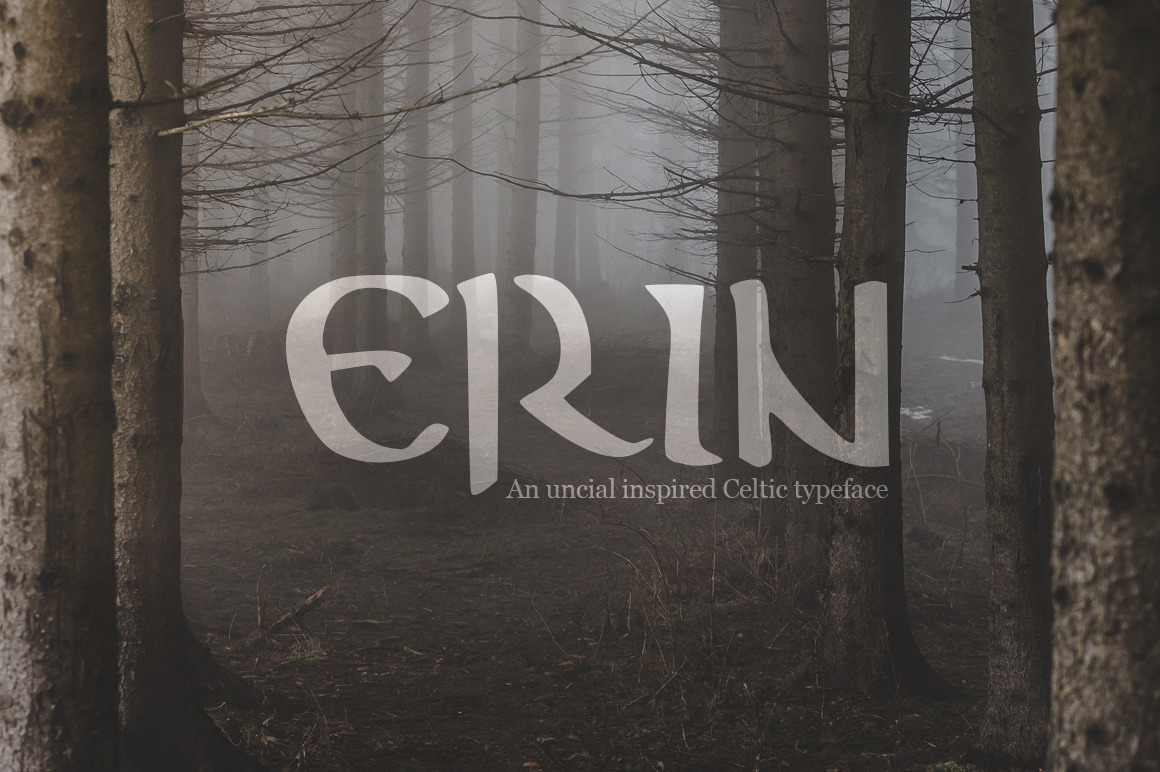
Erin - A Mystical Celtic Typeface
Erin is a Celtic inspired, uncial typeface that comes in two variants; medium and aged. Perfect for adding an air of mysticism and a legendary feel to posters, packaging, branding...and pretty much anything else you can think of.
The font has a humanist feel, with some minor irregularities in the baseline to emphasize the hand crafted appeal. The Aged version has been peppered with pits and scratches, providing a battle-worn and weathered look. Think Celtic, Viking, Fantasy and Medieval....think Erin.
Note, due to the visual aesthetic of the typeface there will be instances where the kerning may need reduced; particularly after the combination of a and d; and a and v